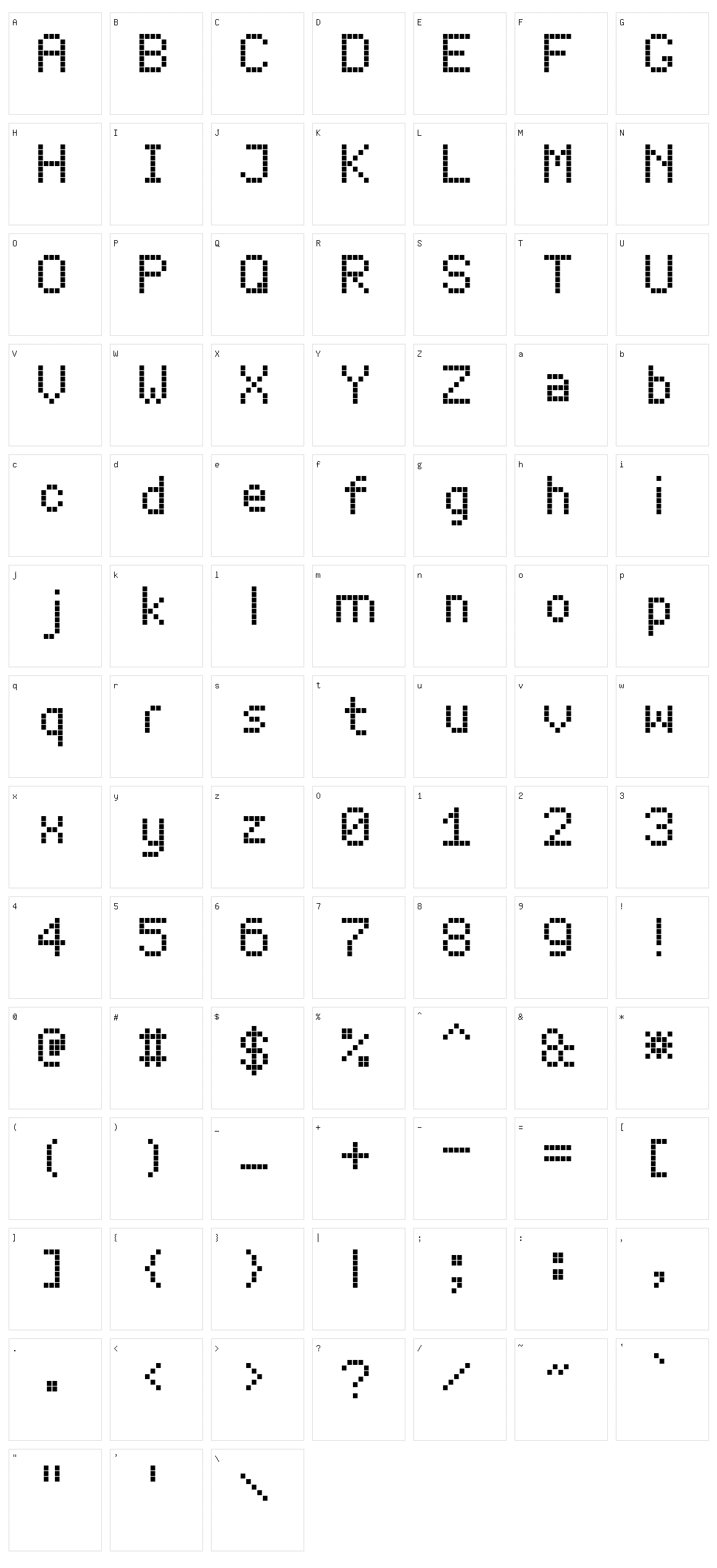
LED Board-7
Designed by: Style-7
Category: LCD & Futuristic
This is original font created in style a LED (Light Emitting Diode) matrix 10*8 units. Native size is 25 points. Latin and Cyrillic code pages are supported.